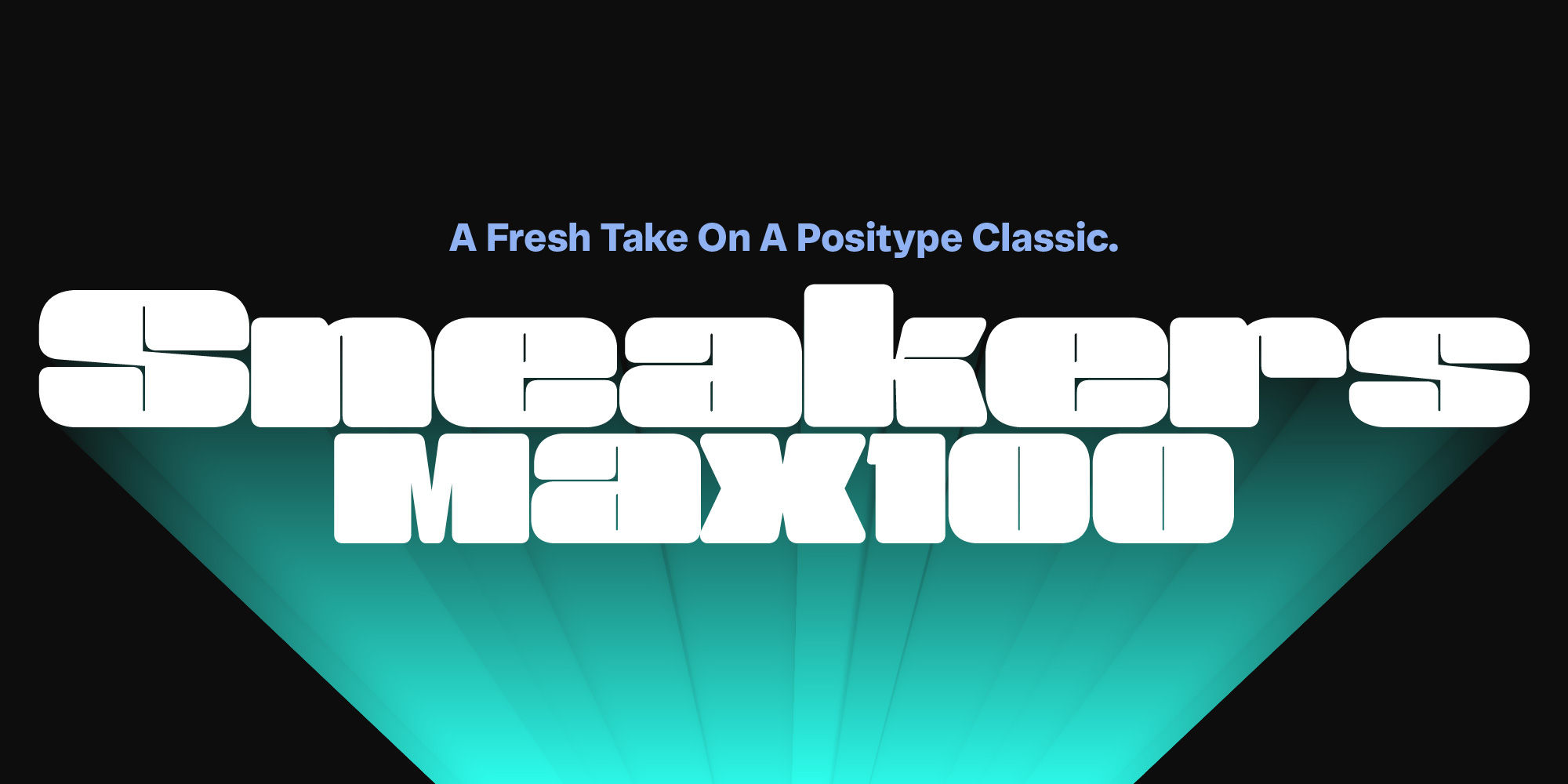
Sneakers Max 100
Sneakers was a typeface that I originally drew all the way back in 2005, with a release in 2006. Its most recent iteration, Sneakers Pro was released in 2009. Since then, the idea of reworking the design has lingered in the back of my head, but I wanted to add additional flexibility and value to anything offered beyond the originals. Sneakers Max does just that and I am happy to see it released and available to everyone.
Sneakers Max raises the bar in terms of functionality… incorporating all of the options found in Sneakers Pro (e.g. Small Caps and a biform/unicase located now in Titling Alternates), but it expands the character offering, improves on letter designs (everything was redrawn) and explores more flexible settings by providing 5 distinct counter widths to keep more uniform multi-line settings with mixed letter heights.